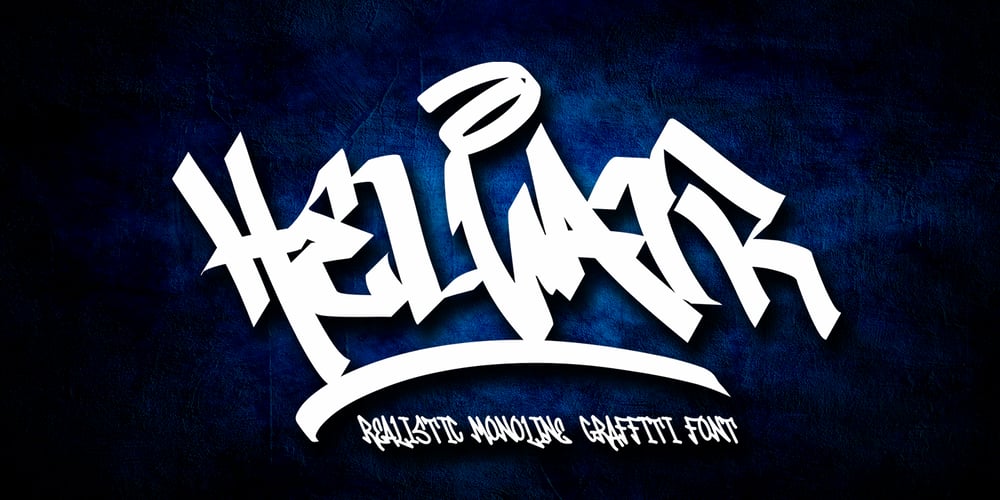
Helvair Graffiti
Helvair Graffiti font
Helvair Graffiti Font Family was designed by Sipanji and published by Sipanji21. Helvair Graffiti contains 1 styles and family package options. Helvair is a Handwritten font with a Realistic monoline graffiti style, with awesome swash perfect for your awesome urban designs. It will elevate a wide range of design projects to the highest levels, be it branding, headings, designs, invitations, signatures, logos, labels, and much more!Features: Uppercase Punctuation Swash PUA Encoded open Support for MAC or PC Simple installation for Adobe Illustrator, Corel Draw, Photoshop, or Procreate (New Updated)